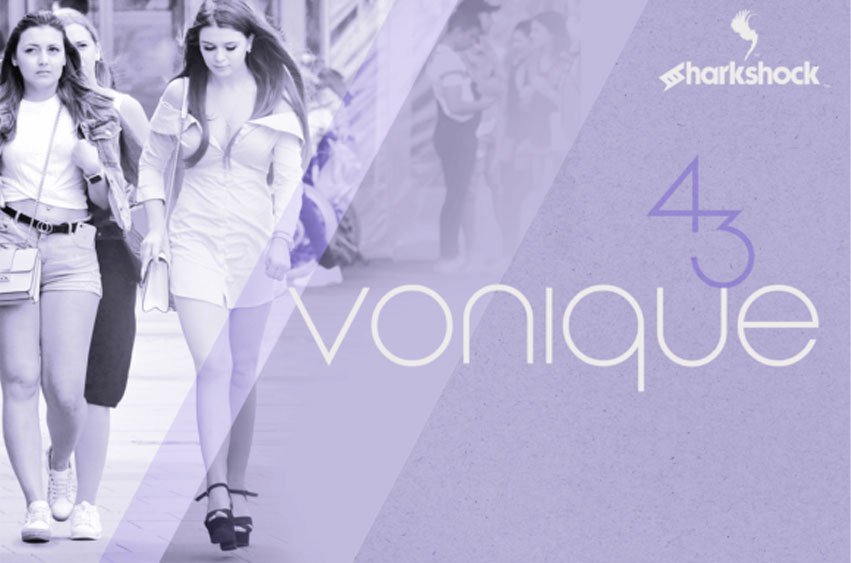
Vonique 43 Font
Vonique 43 Font is a sleek, elegant and sophisticated font that will inspire any design project.
It fits in headlines, logos, posters, flyers, invitations, name cards, branding materials, print media, editorial layouts, and many more.